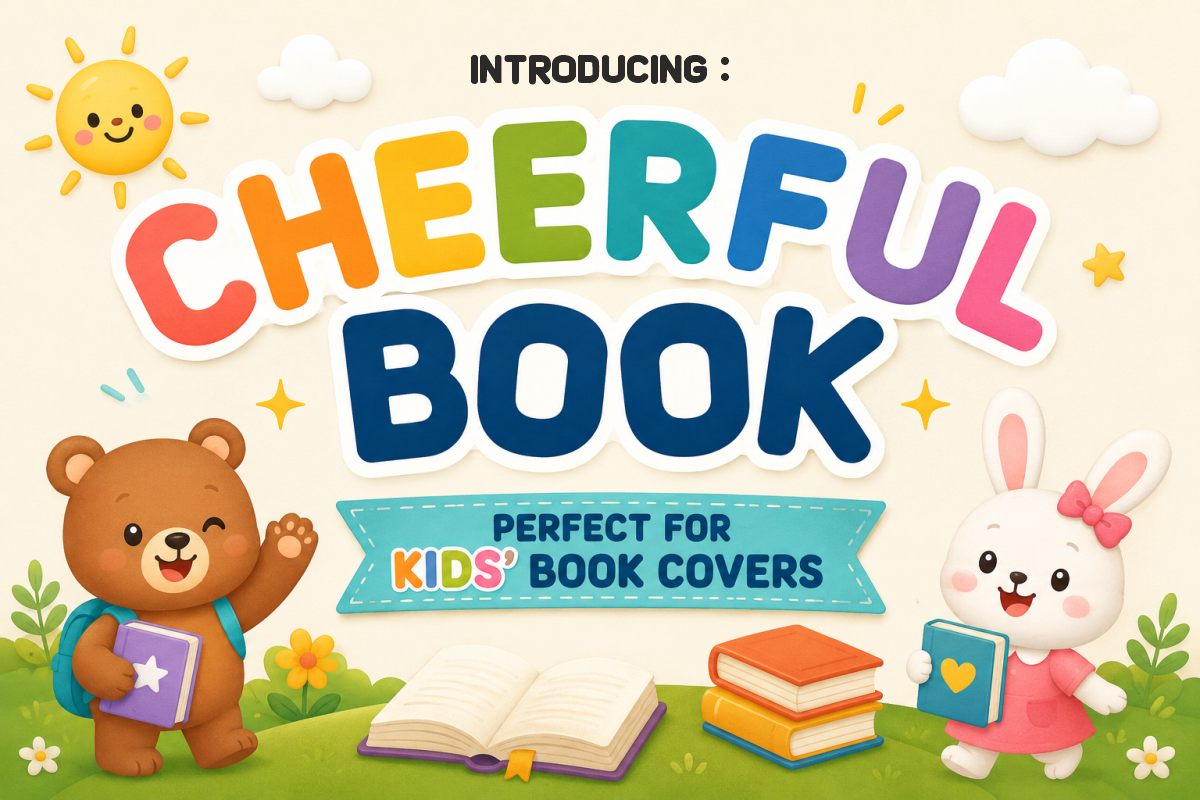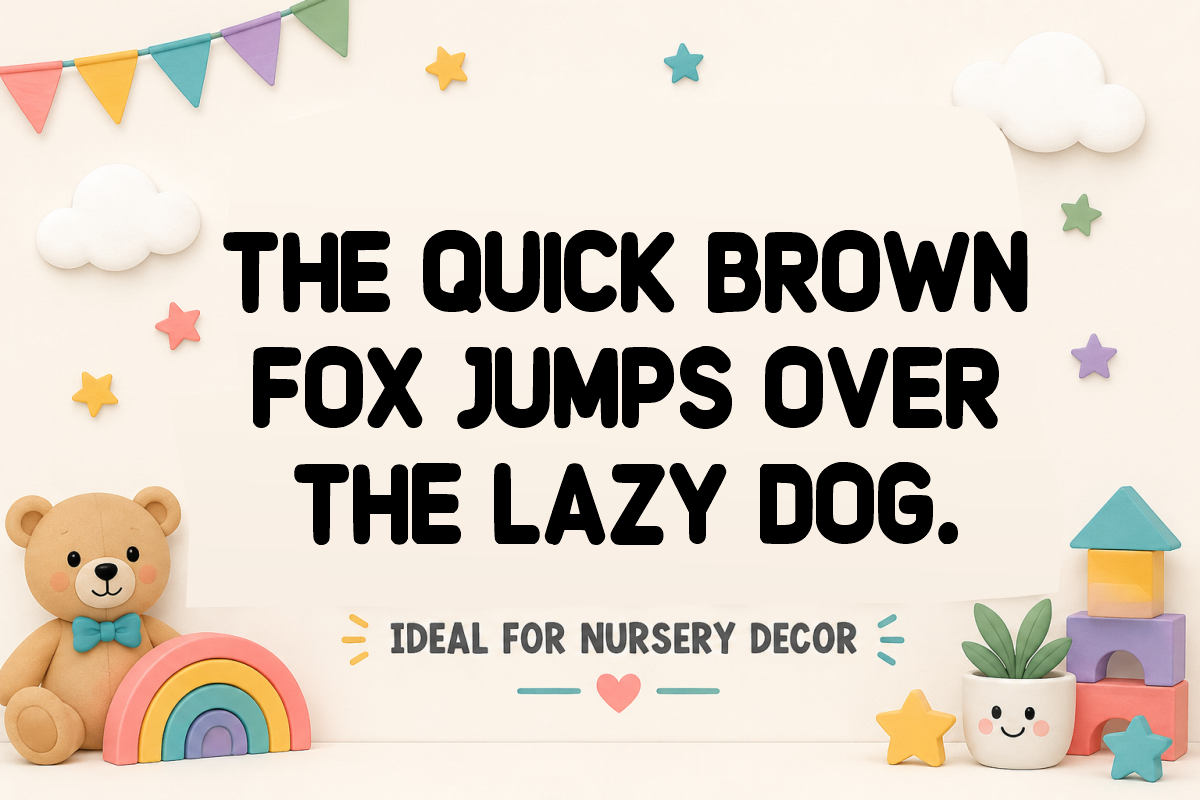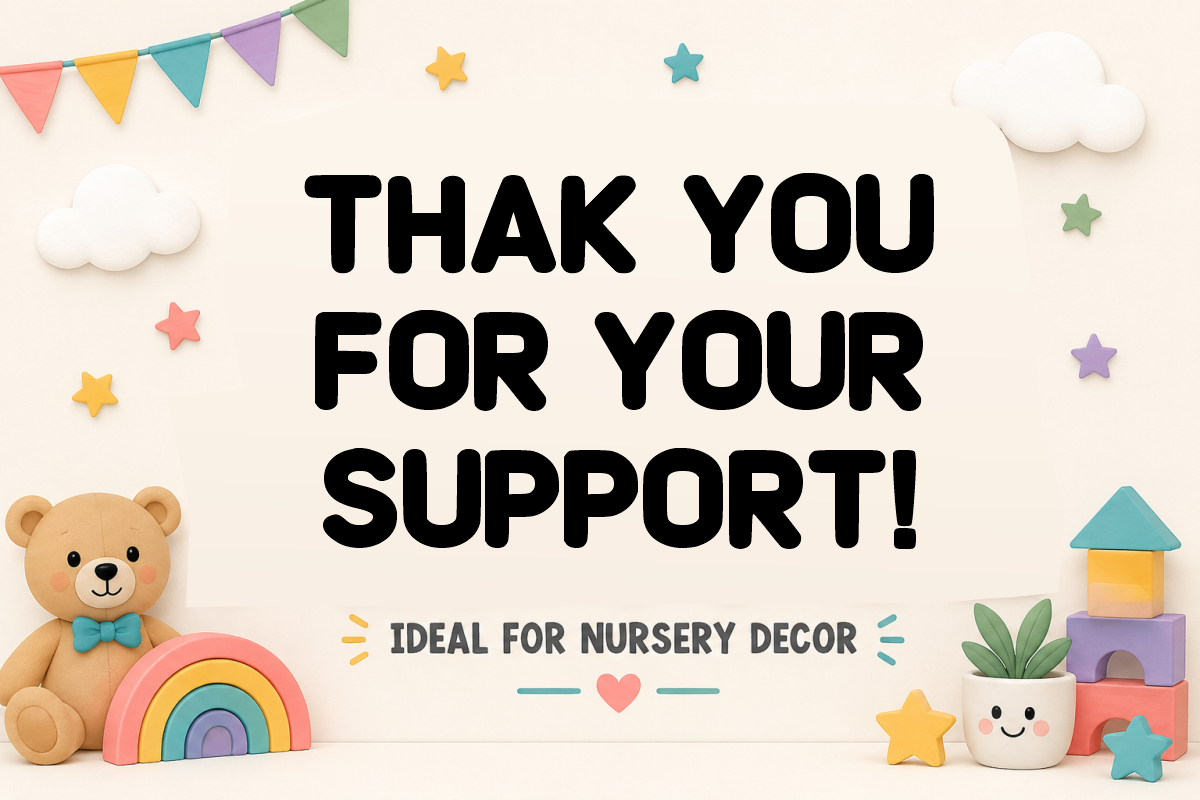
Cheerful Book - Playful Kids Font
Cheerful Book - Playful Kids Storybook Font
Cheerful Book is a bright, bold, and friendly display font featuring smooth rounded letterforms designed to capture imagination. Specially crafted for children’s book covers, storybook titles, classroom learning materials, and playful craft projects, this bubbly font brings joy, clarity, and warmth to every design. Every character is cleanly vectorized to guarantee high-resolution prints and smooth, effortless cutting on Cricut and Silhouette machines.
Uppercase Character Set
Numbers & Basic Punctuation
Ideal For:
Children’s book covers, storybook titles, nursery prints, fairytale illustrations, and juvenile publishing
Teachers Pay Teachers (TpT) authors creating back-to-school worksheets, learning flashcards, reading headers, and classroom bulletin boards
Cricut, Silhouette, and HTV vinyl cutting projects for kids' apparel, tote bags, custom lunchboxes, and playroom decor
Etsy sellers designing birthday party invitations, custom school stationery, printable activity packs, and greeting cards
Print-on-Demand (POD) products, educational board games, toy packaging, and children's lifestyle merchandise
Canva template creators making library posters, school event banners, and engaging social media graphics
Custom die-cut sticker packs, planner decals, and digital scrapbooking layouts